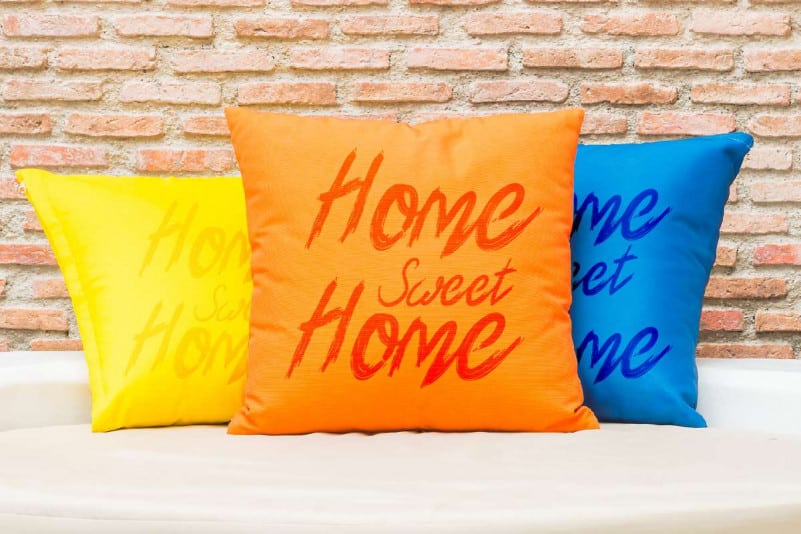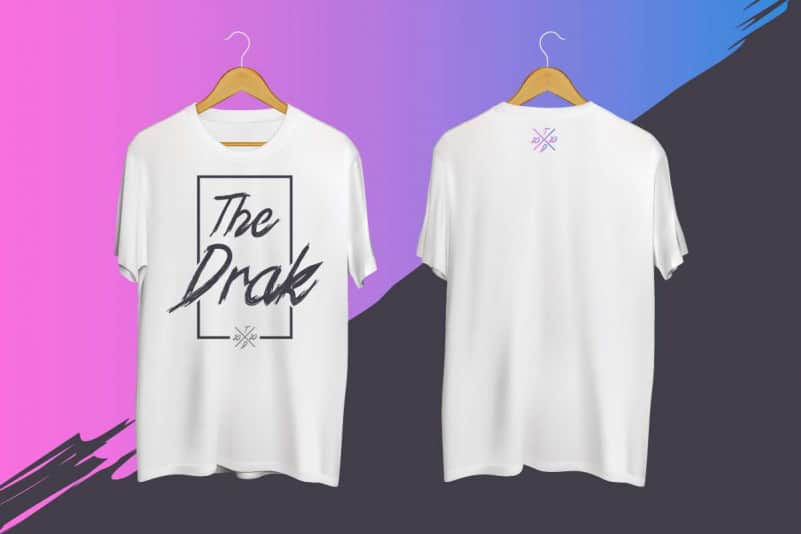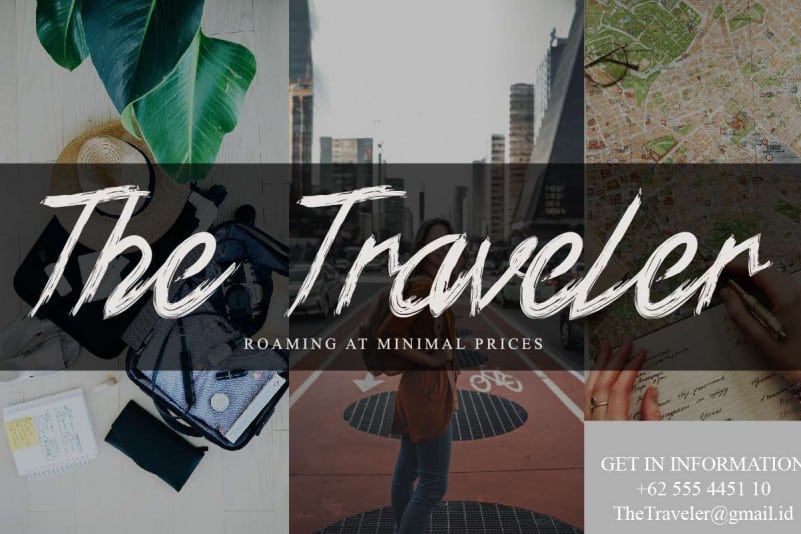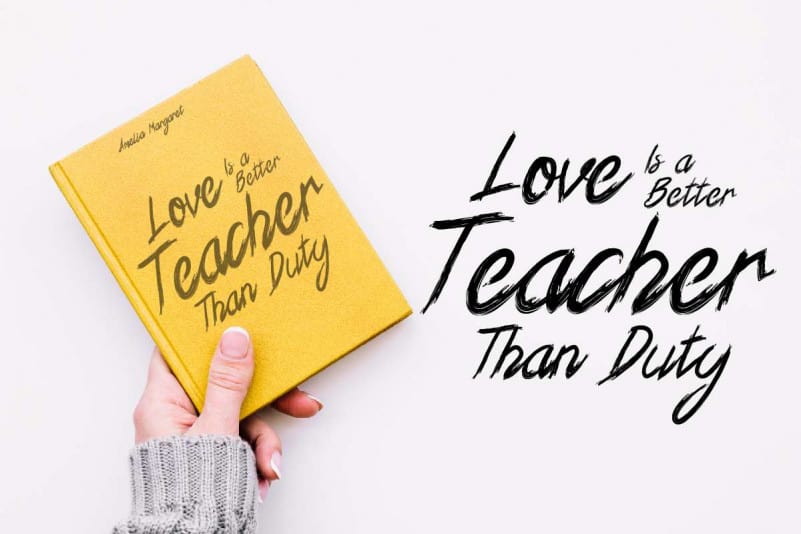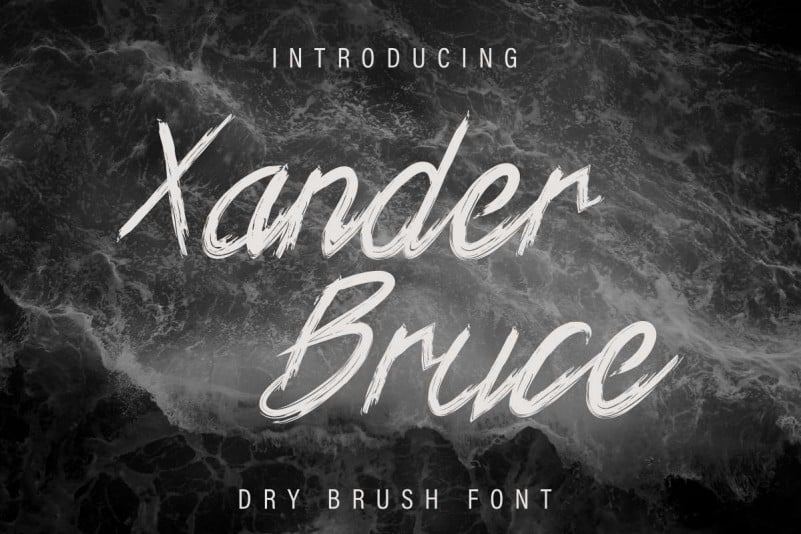
Xander Bruce Brush Font
Introducing : Xander Bruce Brush Font. This new font is a new modern script display font, which has a unique dry brush style. With its style you can explore many industries and designs categories including and not limited to : wedding, events, music, restaurant, cafe, coffee etc. With an extendend licenses you can create anything you want : Branding (logo, stationery, bizcard, head letter, folder etc), promotions stuff (flyer, brochure, postcard etc), Digital marketing (Banner, Ads, cover etc), Personal Invitation, Magazine, Website etc